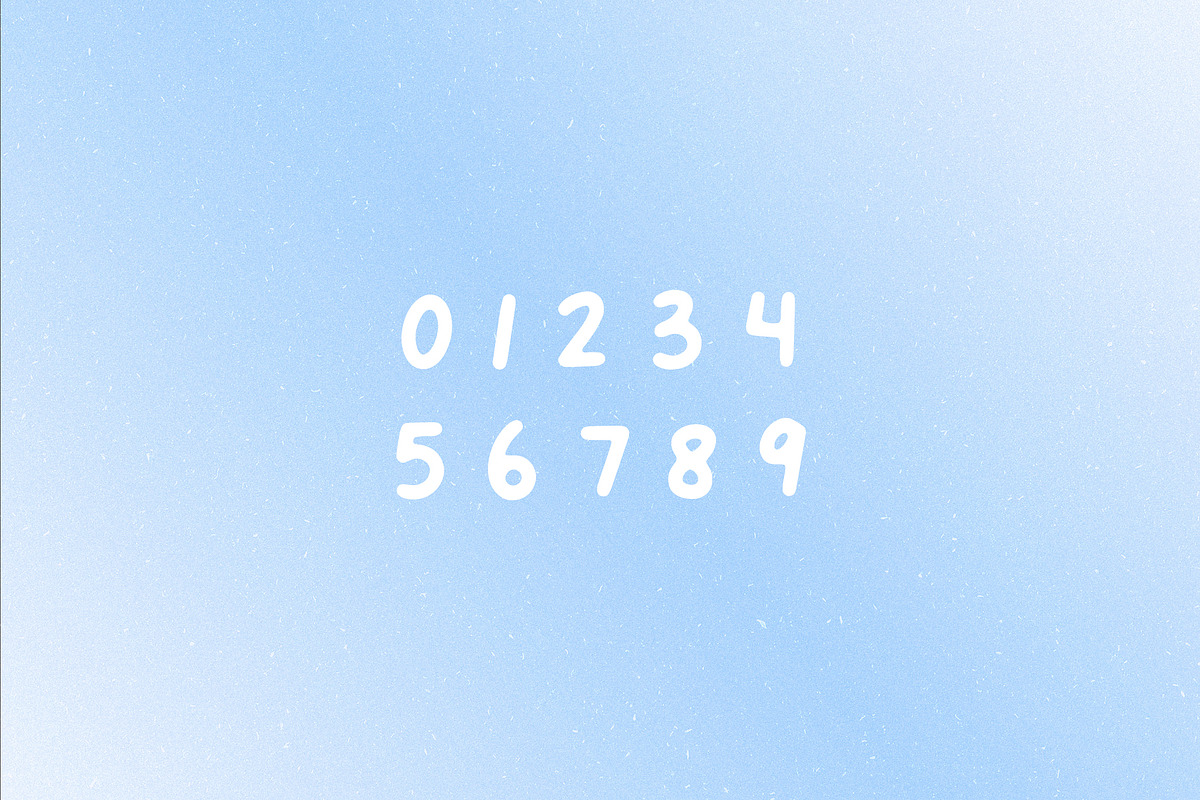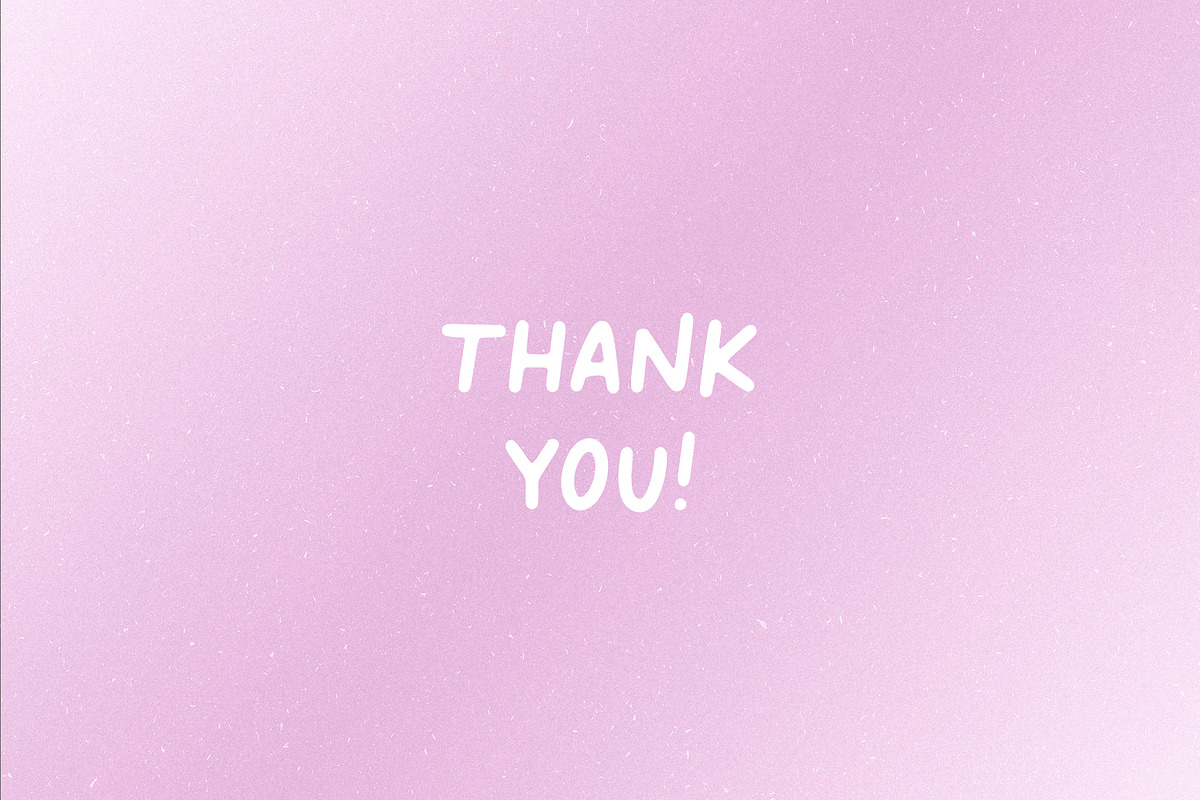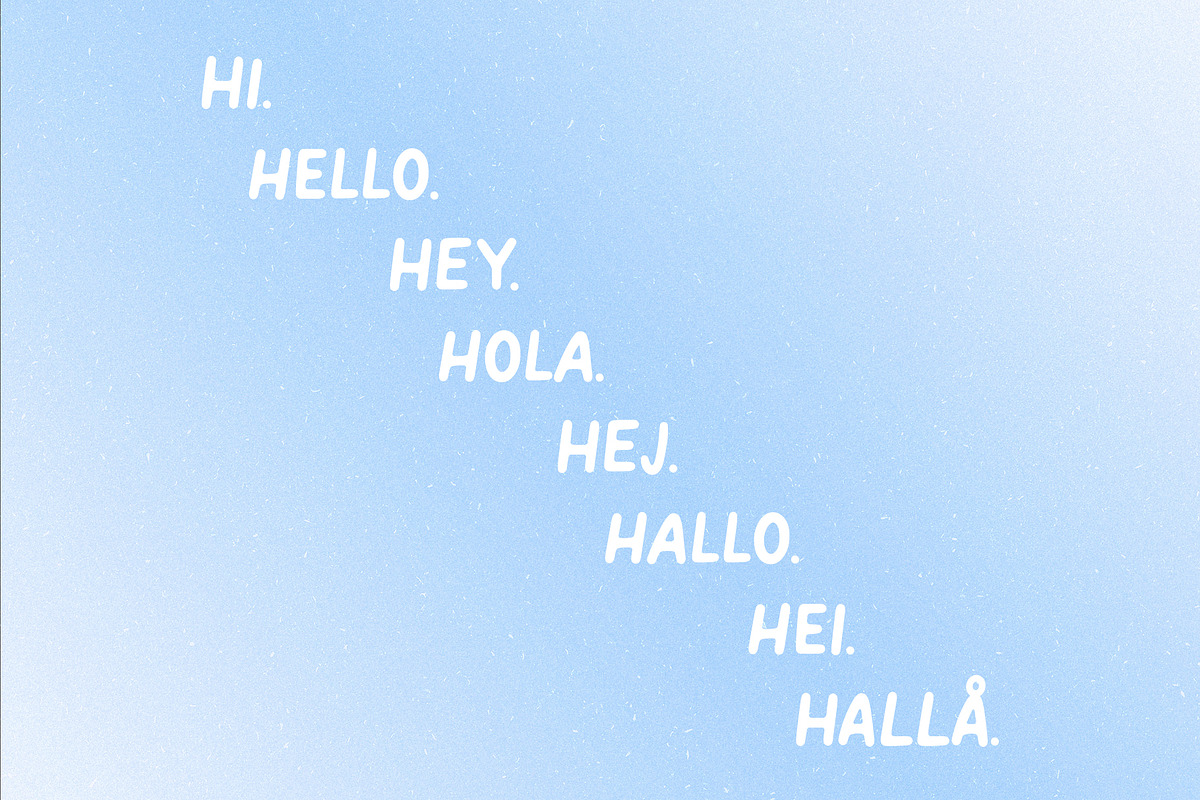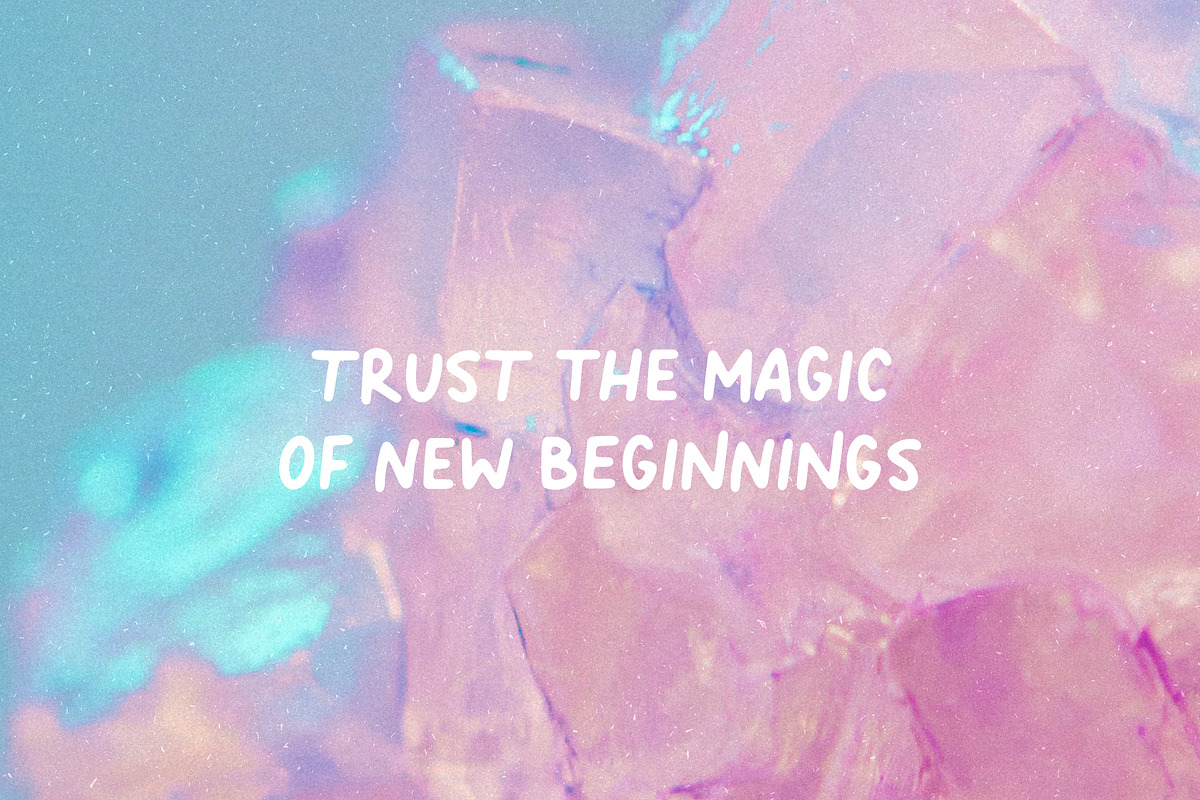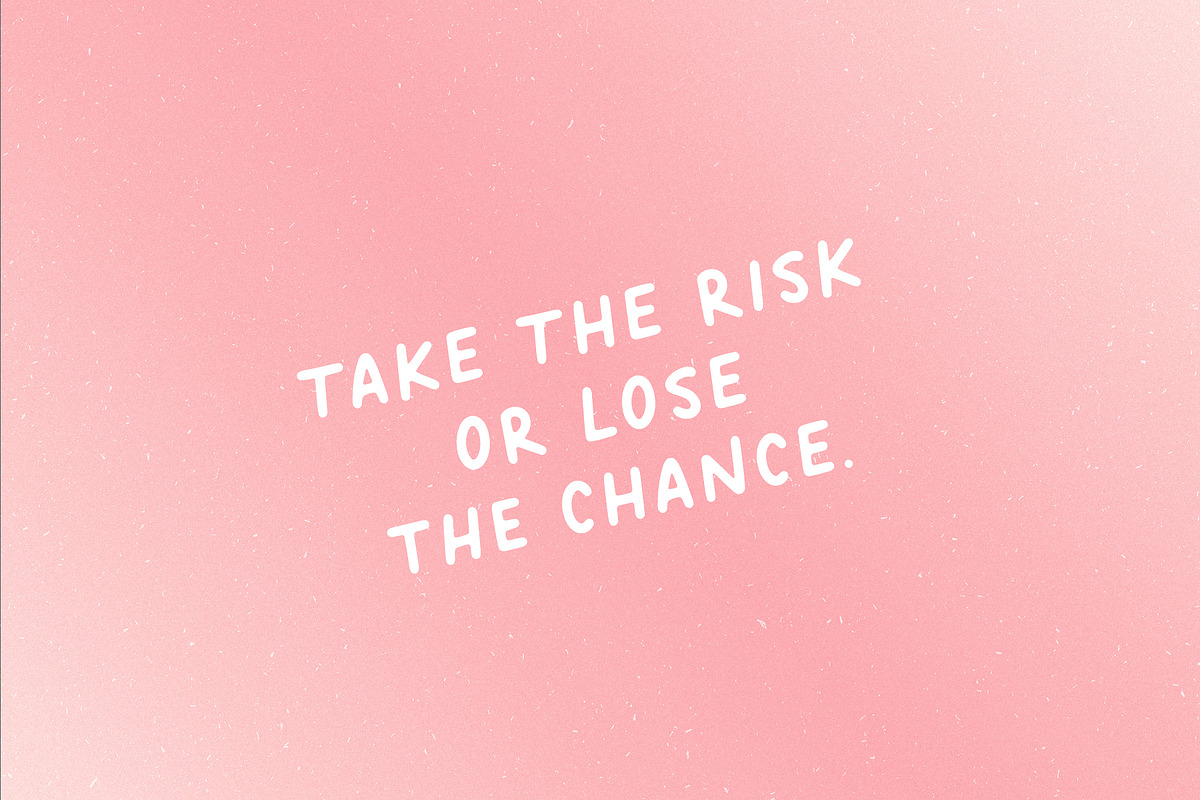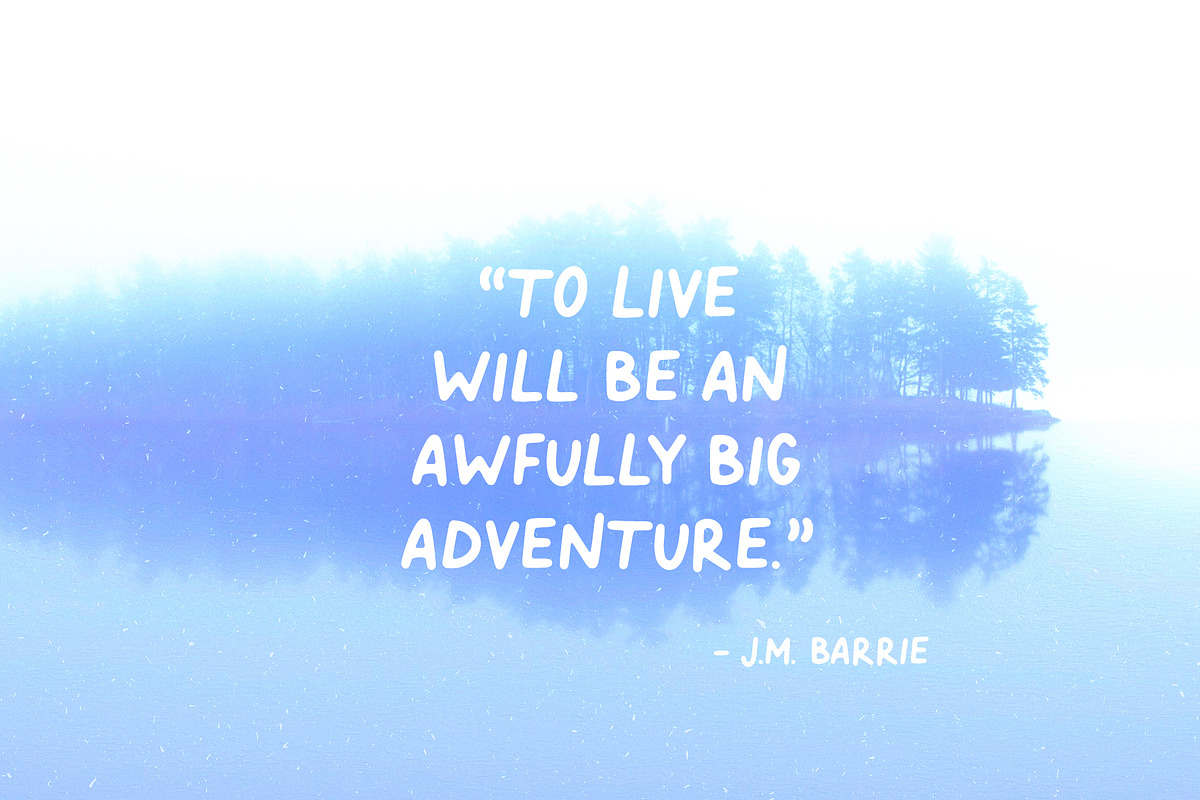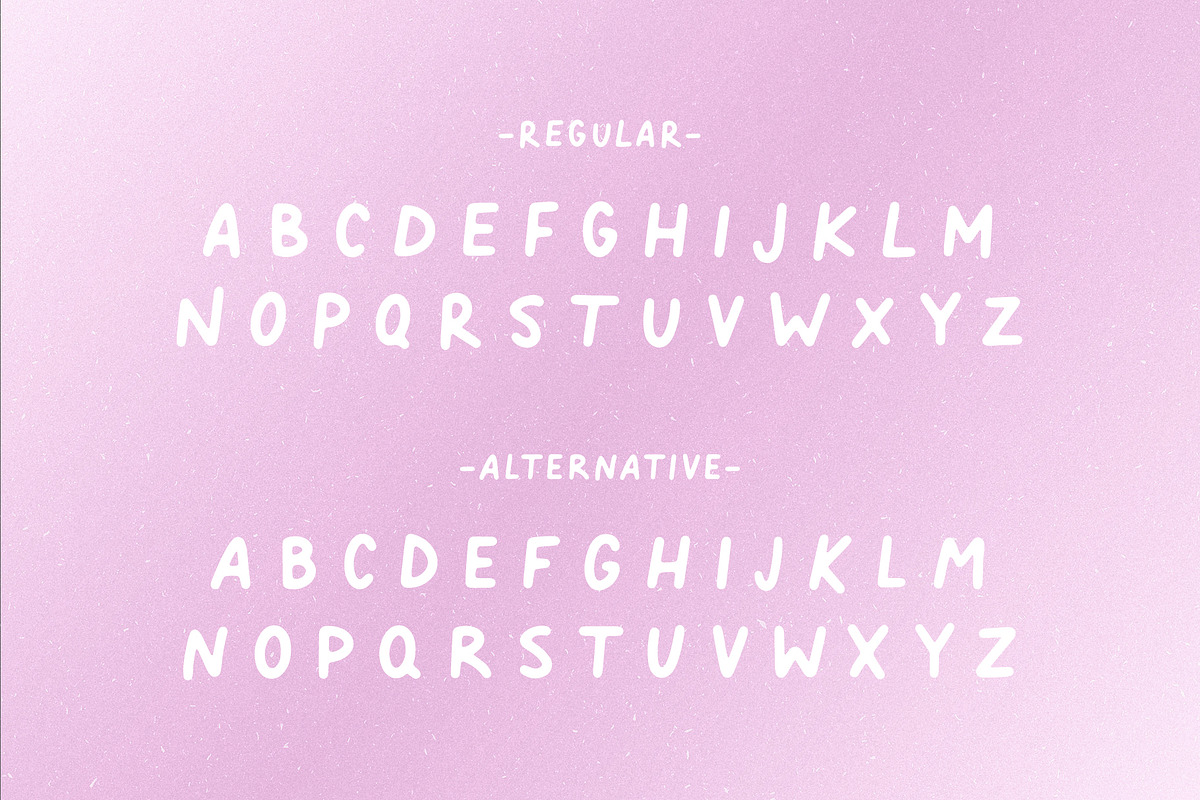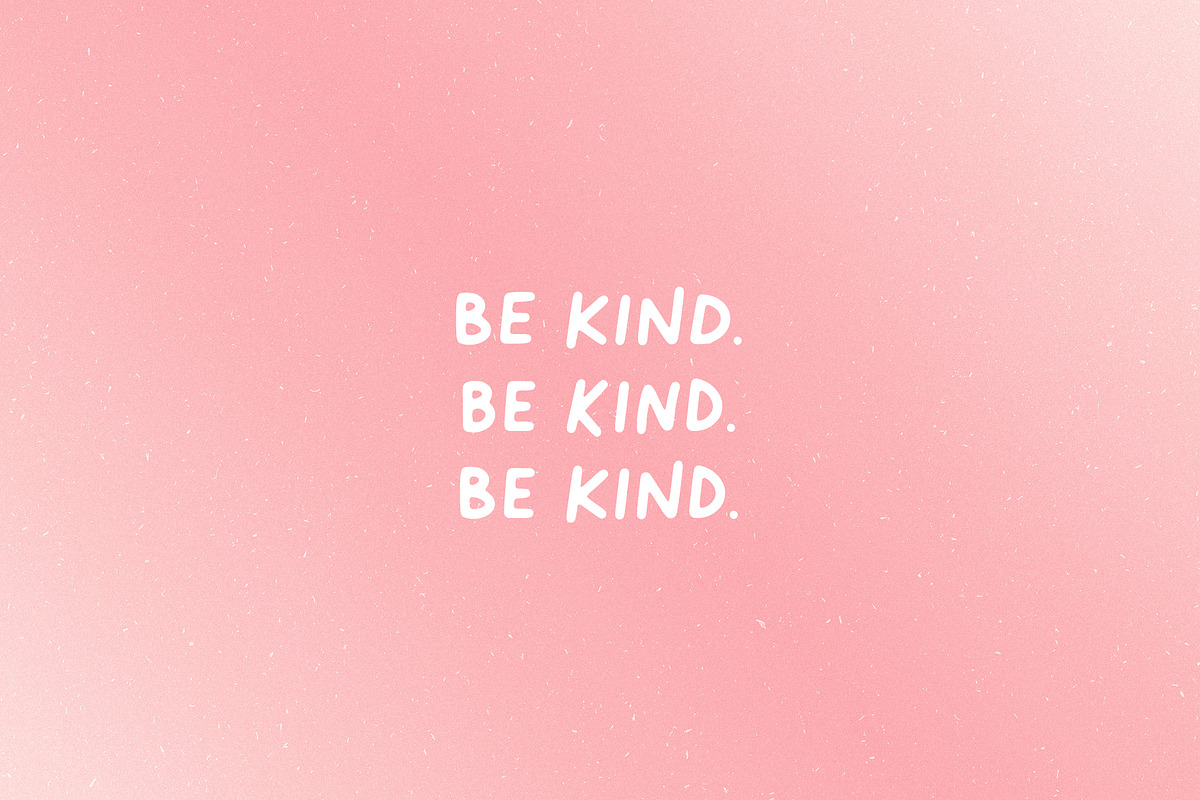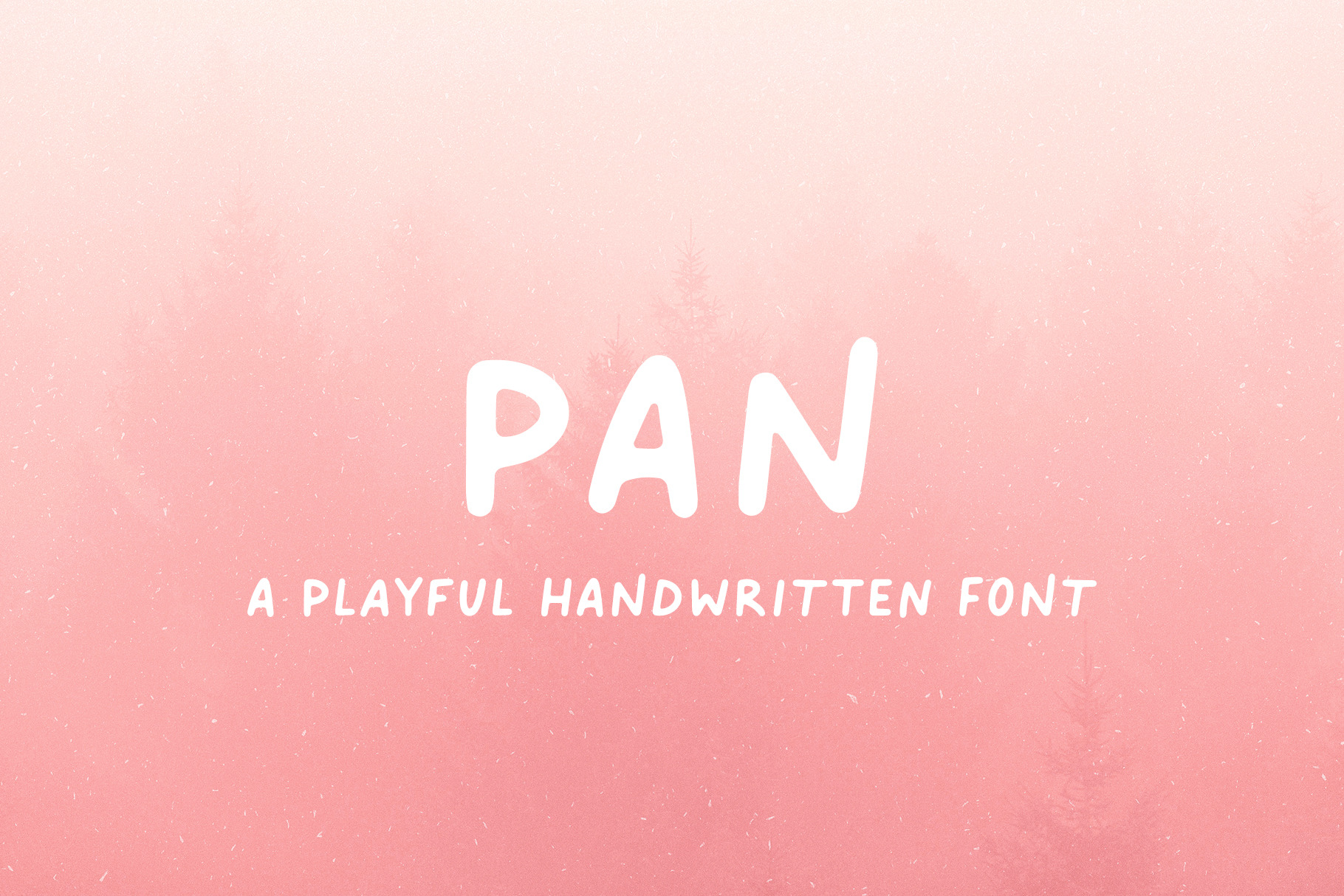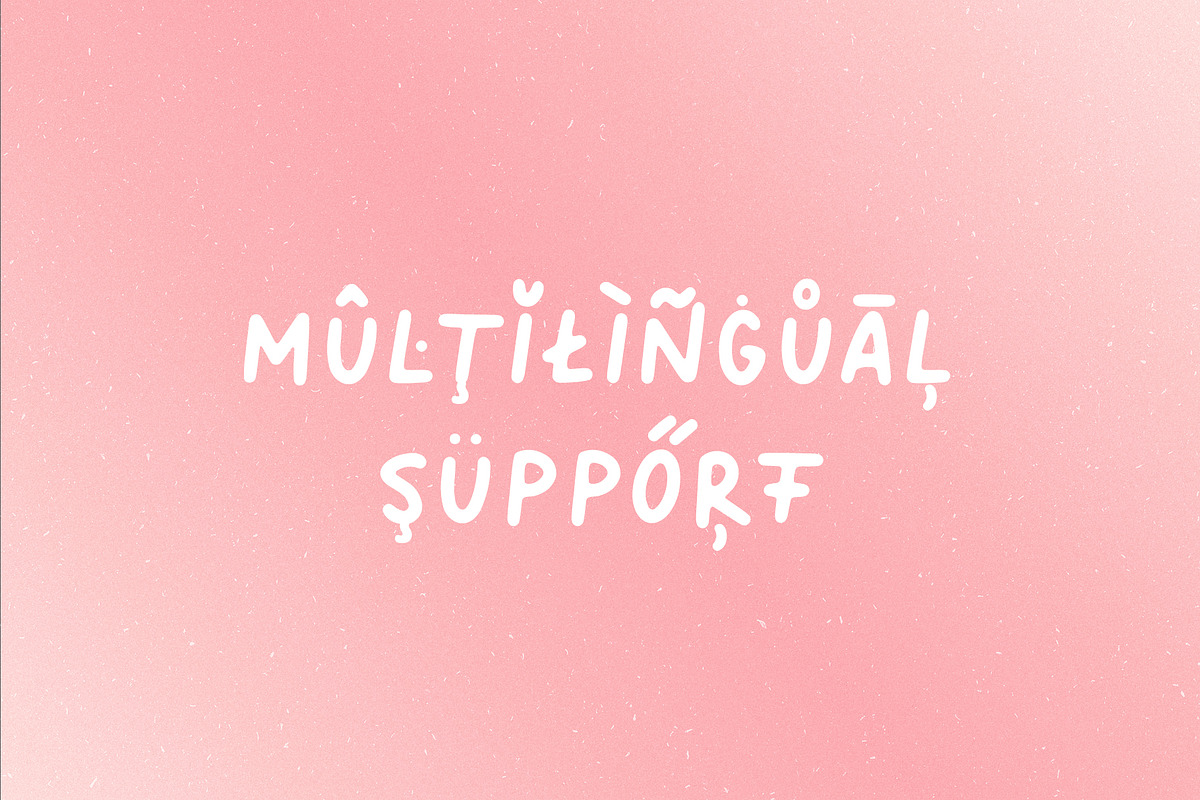
Pan // A Playful Handwritten Font
Pan is a playful, handwritten all-caps font. There is both a regular version and an alternative version, so, you can attain that perfectly imperfect handwritten look. Perfect for social media images, creating quotes, or just adding a handwritten touch to your projects.
- 2 sets of uppercase letters
- Accented characters for the international designer